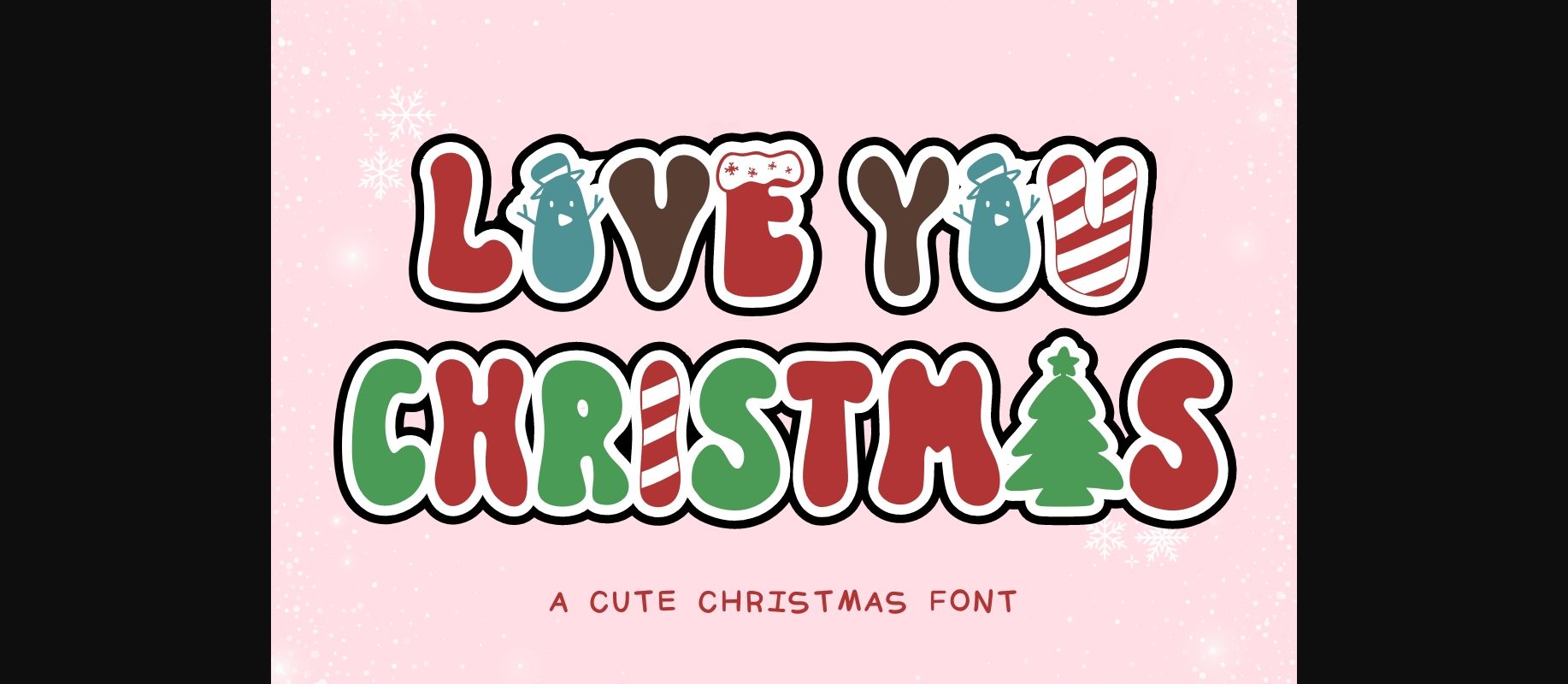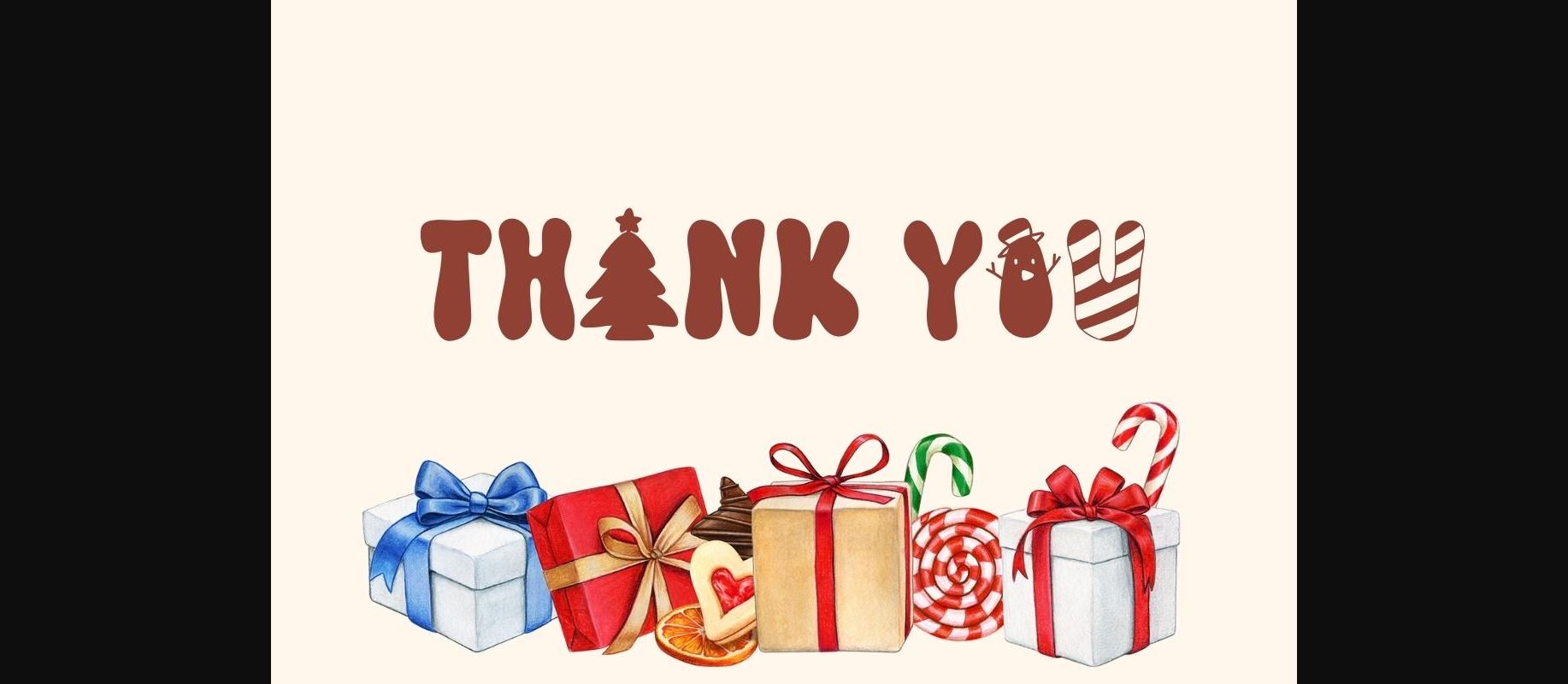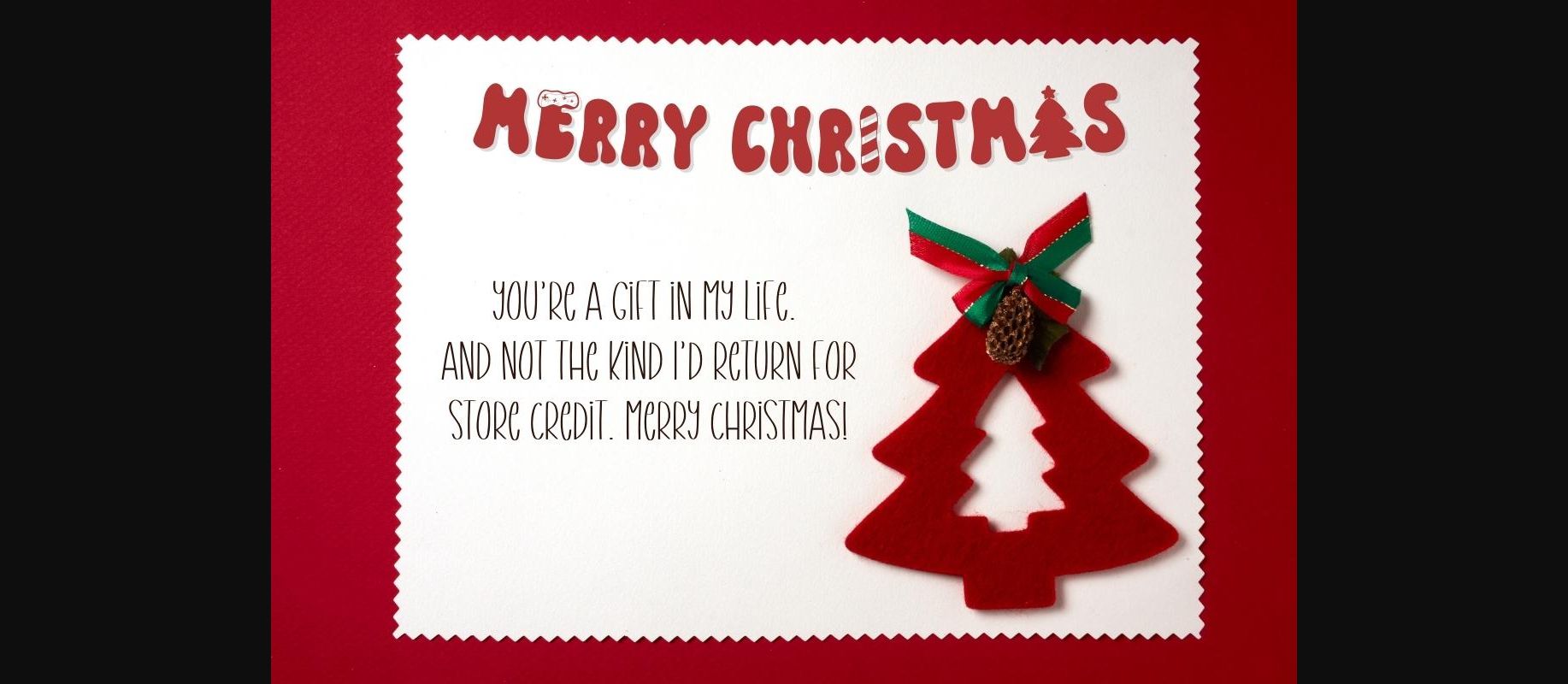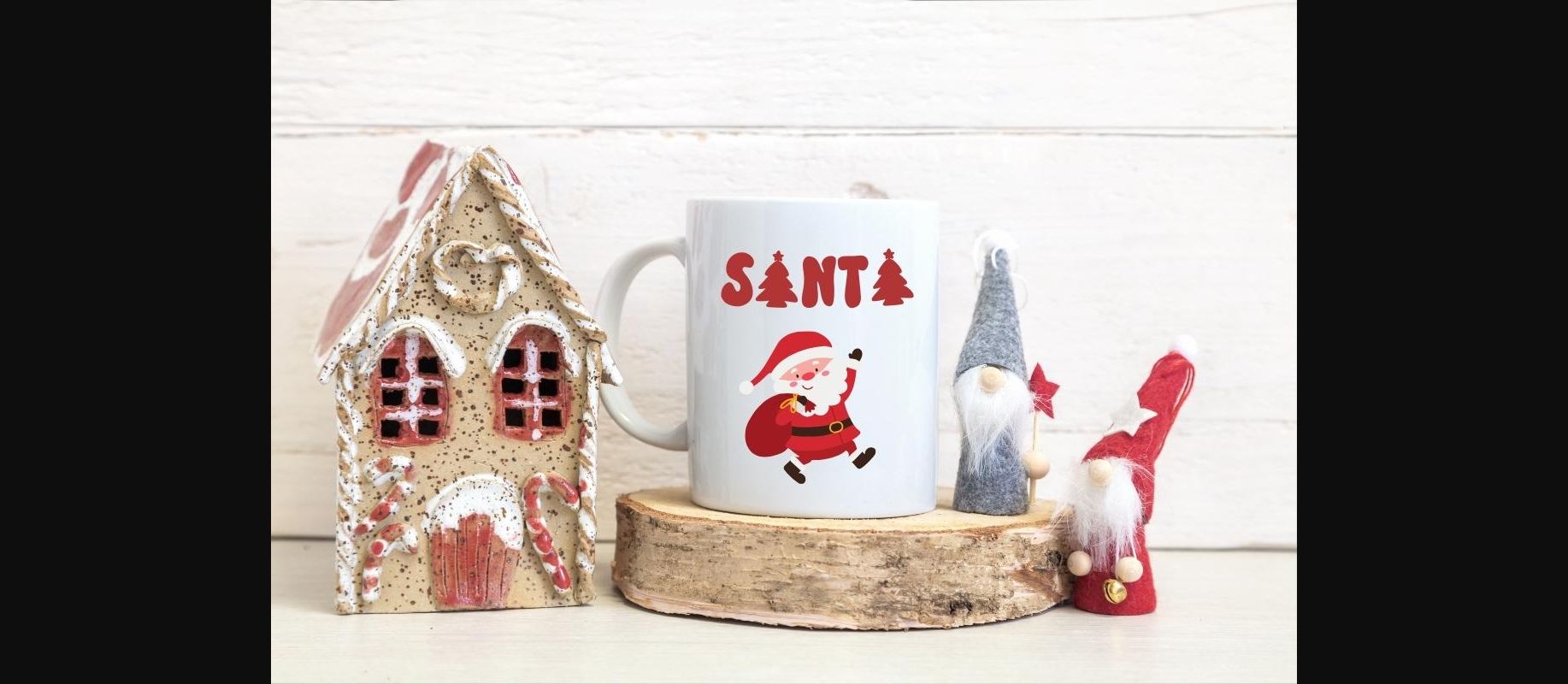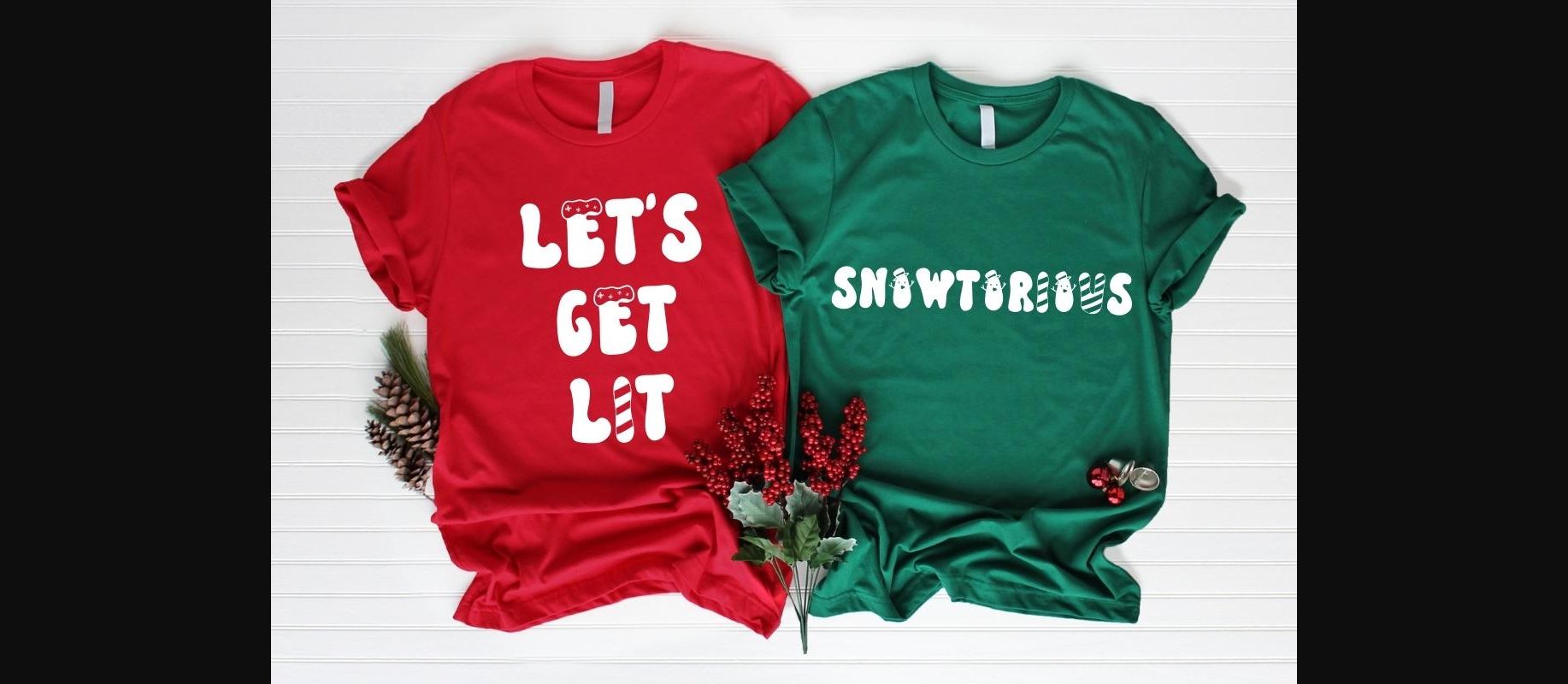
About Love You Christmas Font
Love You Christmas is a cute Christmas font. It is a unique display font. Playful and a little bit quirky, this font is the perfect fit for all of your festive or winter projects. This font is PUA encoded which means you can access all glyphs and swashes effortlessly!